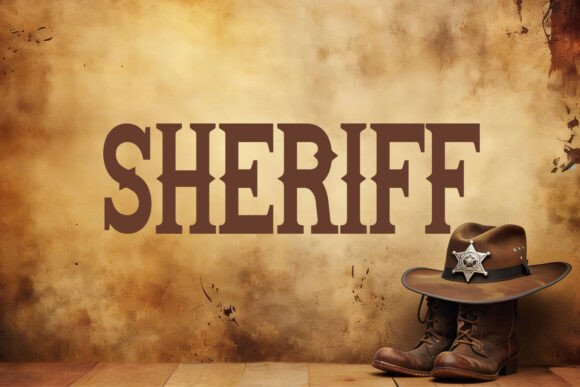
Sheriff Font: A Premium Vintage Western Typeface
The cursor blinked on my screen, waiting for a typeface that could carry the weight of a new editorial project. I was designing a digital guide for an artisanal leather workshop, and every font I tested felt either too polished or too cartoonish. That is when I loaded Sheriff - Premium Vintage Western into my design software, and the layout immediately found its voice. This specific Slab Serif did not just fill the header space; it anchored the entire visual narrative with a sense of history and craftsmanship that modern Fonts often lack. For creators working on heritage brands, outdoor lifestyle publications, or rustic wedding stationery, finding a display typeface that balances rugged character with professional legibility is a constant challenge, but this font offers a sophisticated solution.
Sheriff - Premium Vintage Western for Artisan Brand Identity
When integrating Sheriff - Premium Vintage Western into brand identity projects, the typeface serves as more than just lettering; it acts as a visual shorthand for authenticity. In my recent work rebranding a small-batch coffee roaster, I needed a logo mark that communicated tradition without feeling like a costume. The massive, confident strokes of this Slab Serif provided the necessary gravity for the logotype while retaining enough refinement to look premium on packaging. Unlike novelty western fonts that rely on excessive ornamentation, Sheriff maintains clean geometric lines that reproduce beautifully at small sizes on business cards and large scales on storefront signage. For designers building identities for makers, ranches, or heritage goods, this font bridges the gap between historical nostalgia and contemporary commercial viability.
Using Sheriff Western Slab Serif Font for Ebook Covers
Designing digital products requires typography that reads clearly as a thumbnail, and Sheriff Western Slab Serif Font Command the frontier of design with Sheriff, a rugged Western slab serif font that captures the legendary spirit of the American Old West. Characterized by its massive, presence makes it ideal for ebook titles. While testing layouts for a historical fiction anthology, I found that the bold weight of this Slab Serif created instant contrast against textured background imagery. The thick serifs hold ink well in print and pixels well on screens, ensuring the title remains the focal point even when scaled down for mobile bookstores. When selecting Fonts for self-publishing or digital downloads, readability at reduced sizes is paramount, and Sheriff’s generous x-height and open counters prevent the letters from muddying together, preserving the professional polish required for paid content.
Sheriff - Premium Vintage Western in Editorial Layouts
Incorporating Sheriff - Premium Vintage Western into magazine spreads or blog headers requires a thoughtful approach to visual hierarchy. During a redesign for an outdoor adventure newsletter, I used this typeface exclusively for section dividers and pull quotes rather than body text. The distinct personality of this Slab Serif draws the reader's eye through long-form content, breaking up dense paragraphs with moments of typographic interest. It pairs exceptionally well with neutral sans serifs for navigation elements or classic transitional serifs for article copy, creating a balanced rhythm that guides the reader without overwhelming them. For editorial designers managing content-heavy platforms, Sheriff provides a reliable tool for establishing mood in headlines while leaving ample whitespace for the actual storytelling.
Typography Pairings with Sheriff - Premium Vintage Western
Successful font pairing relies on contrast, and Sheriff - Premium Vintage Western demands partners that respect its dominance without competing for attention. Because this Slab Serif carries such strong vintage connotations, I avoid pairing it with other decorative or script fonts, which can make a layout feel cluttered or dated. Instead, I have found success combining it with clean, humanist sans serifs for subheads and captions, allowing the Sheriff headings to act as the emotional anchor while the supporting Fonts handle the functional information. For a wedding invitation suite I recently designed, pairing Sheriff with a delicate, high-contrast serif for the details created a beautiful tension between masculine ruggedness and feminine elegance. This versatility makes it a valuable asset in a designer’s library, capable of adapting to various aesthetic directions depending on what it is paired with.
Readability Considerations for Sheriff Western Slab Serif Font
While Sheriff Western Slab Serif Font Command the frontier of design with Sheriff, a rugged Western slab serif font that captures the legendary spirit of the American Old West. Characterized by its massive, scale is its greatest strength, it also dictates its limitations in user experience. Through testing various PDF exports and web headers, I have learned that this typeface performs best as a display face rather than for extended reading. The heavy stroke width and distinctive serifs can cause eye fatigue if used for body copy or small UI elements. However, for hero images, poster designs, and chapter openers, the legibility is superb. Designers creating printable planners or coaching workbooks should reserve Sheriff for titles and motivational quotes, utilizing simpler typefaces for worksheets and instructional text to ensure accessibility and comfort for the end user.